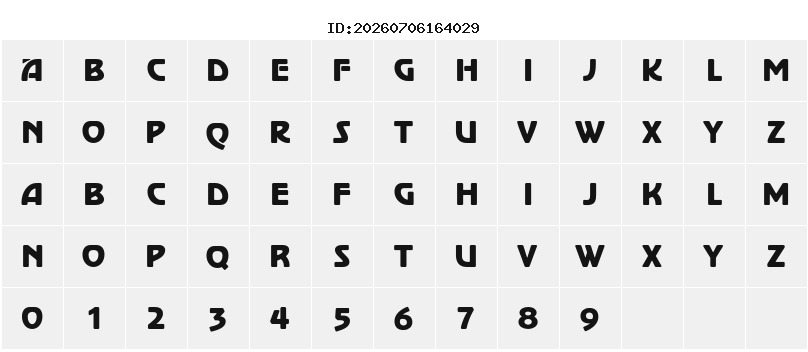
Diablo Std Preview
• Font Name: Diablo Std
• Full Font Name: DiabloStd
About Diablo Std.otf
Diablo Std.otf is a modern, elegant sans-serif font designed for ultimate readability and visual harmony. Perfect for branding, headlines, web design, and print materials.